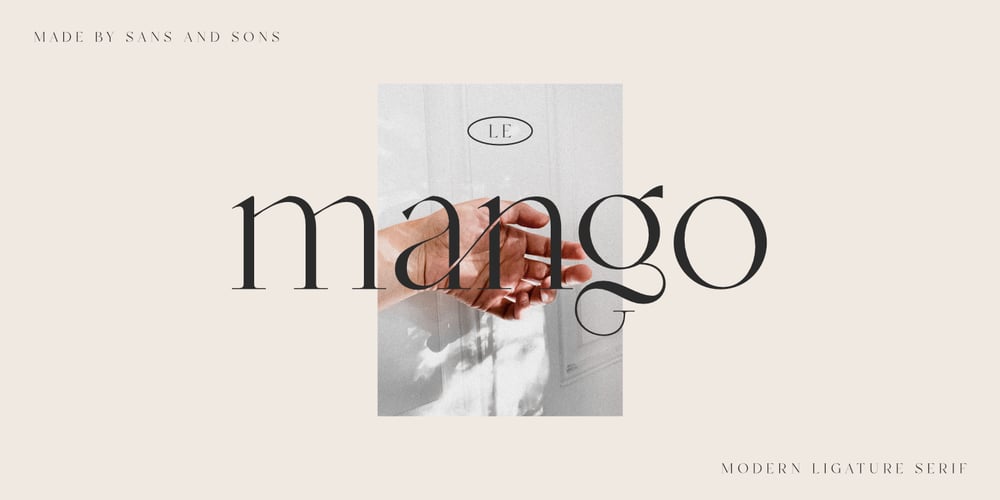
La Mango Font Family was designed by Angga Suwista and published by Sans And Sons. La Mango contains 6 styles and family package options. Le Mango, a Modern Ligature Serif with Elegant Style.Le Mango is a high contrast typeface so delicate, legible and lend themselves to high end branding, logo designs, product packaging, invitation & masterhead designs.Language Support:All fonts support English, French, Italian, Spanish, Portuguese, German, Swedish, Norwegian, Danish, Dutch, Finnish, Indonesian, Malay, Hungarian, Polish, Turkish, Slovenian.